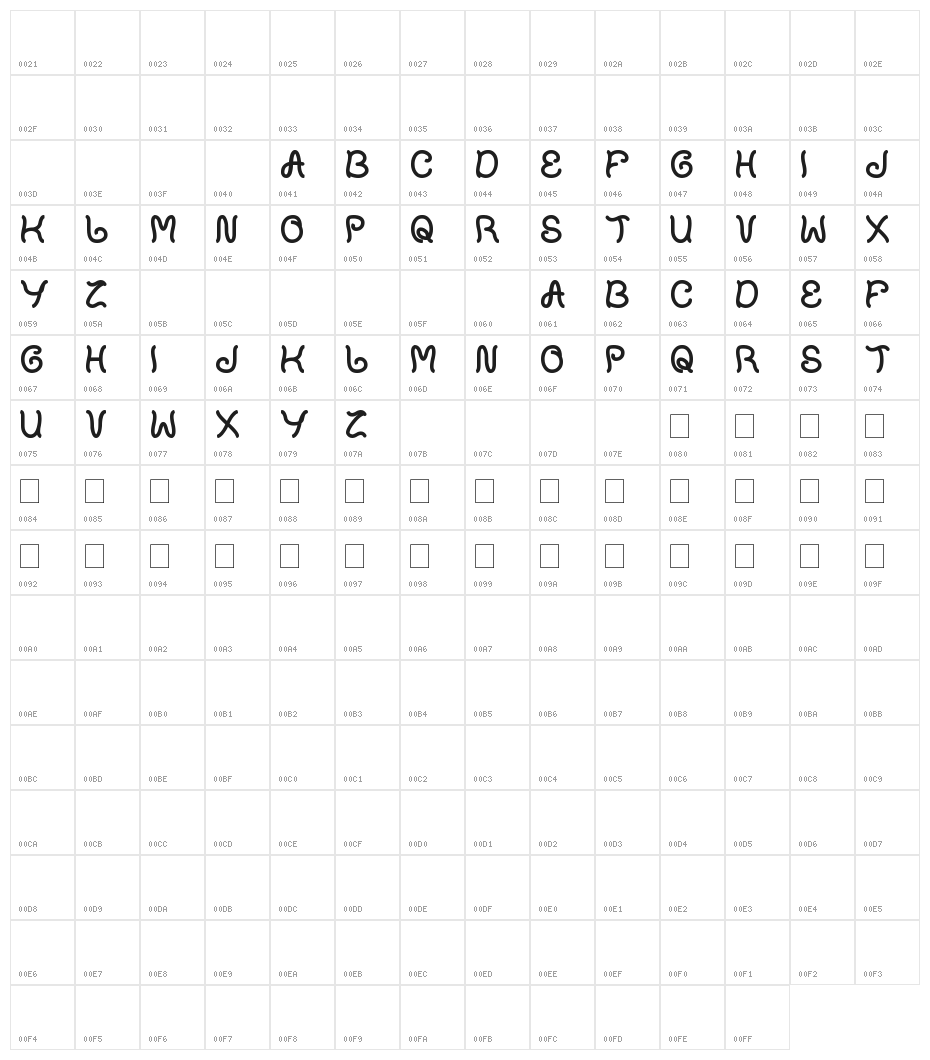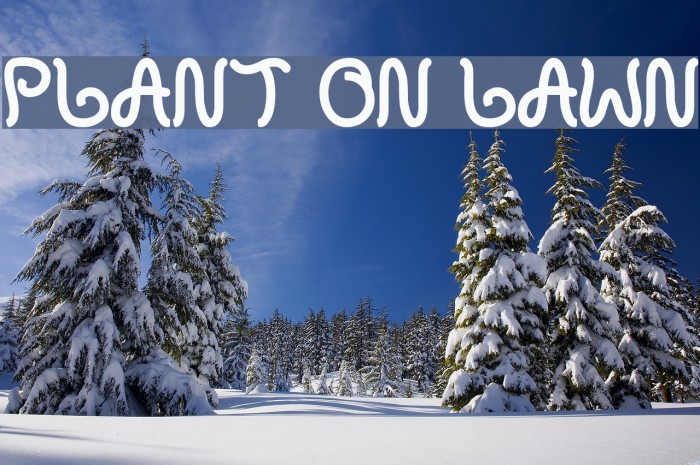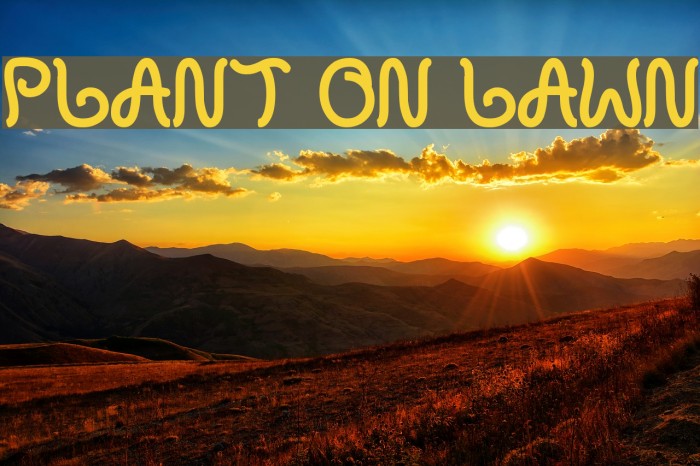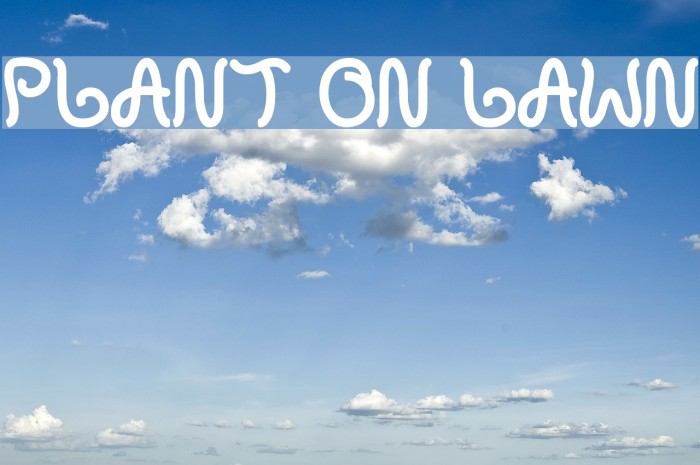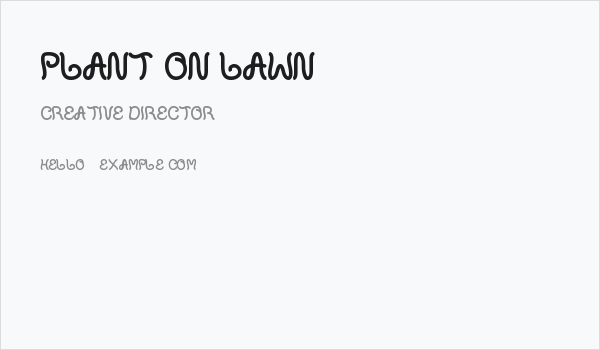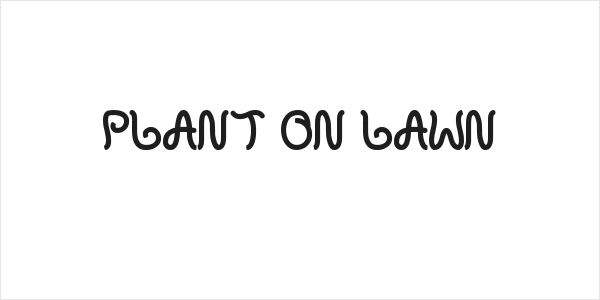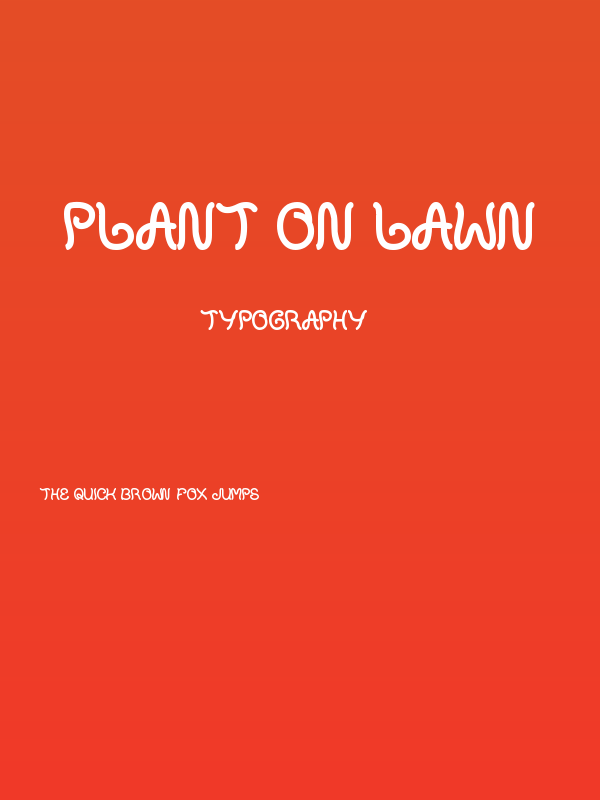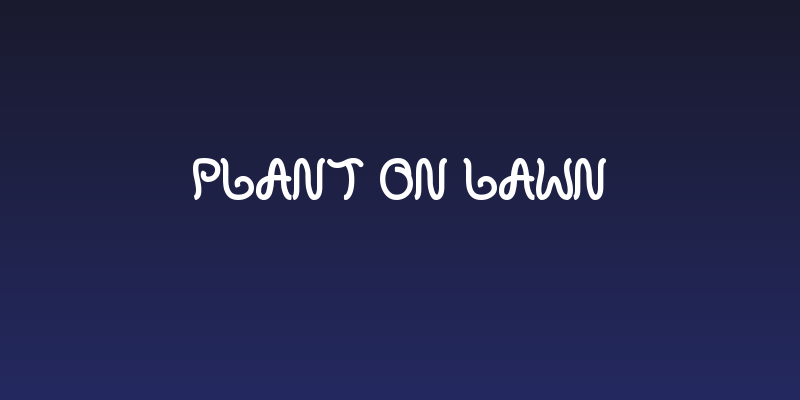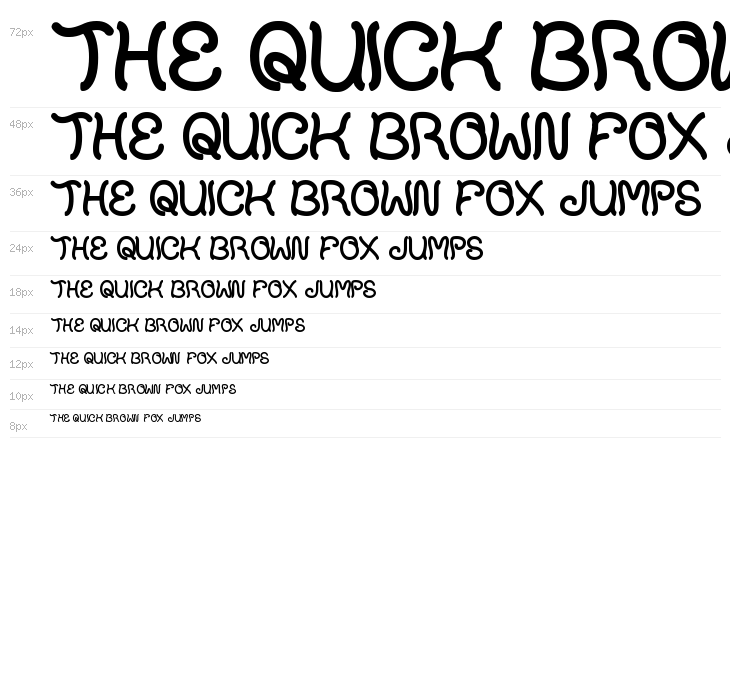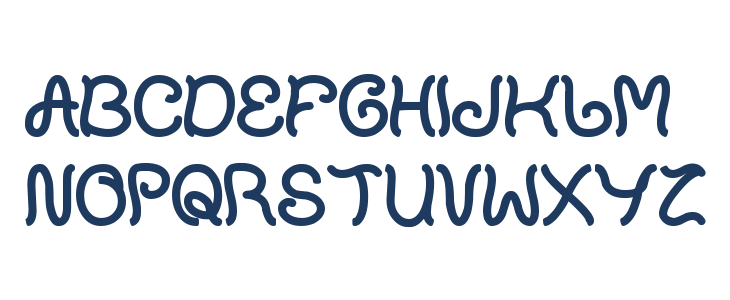
plant on lawn Font
plant on lawn Description
This font features a playful and whimsical design, characterized by its bold, rounded strokes and decorative elements. The letters have a hand-drawn quality, with each character exhibiting unique flourishes and curves that add to its charm. The uppercase letters are particularly distinctive, with exaggerated loops and swirls that give the font a lively and energetic feel. The overall style is reminiscent of a casual script, yet maintains a structured form that ensures readability. This font is well-suited for creative projects that require a touch of fun and personality.
| Proposed Projects | Ideal for children's books, playful branding, greeting cards, and creative posters. |